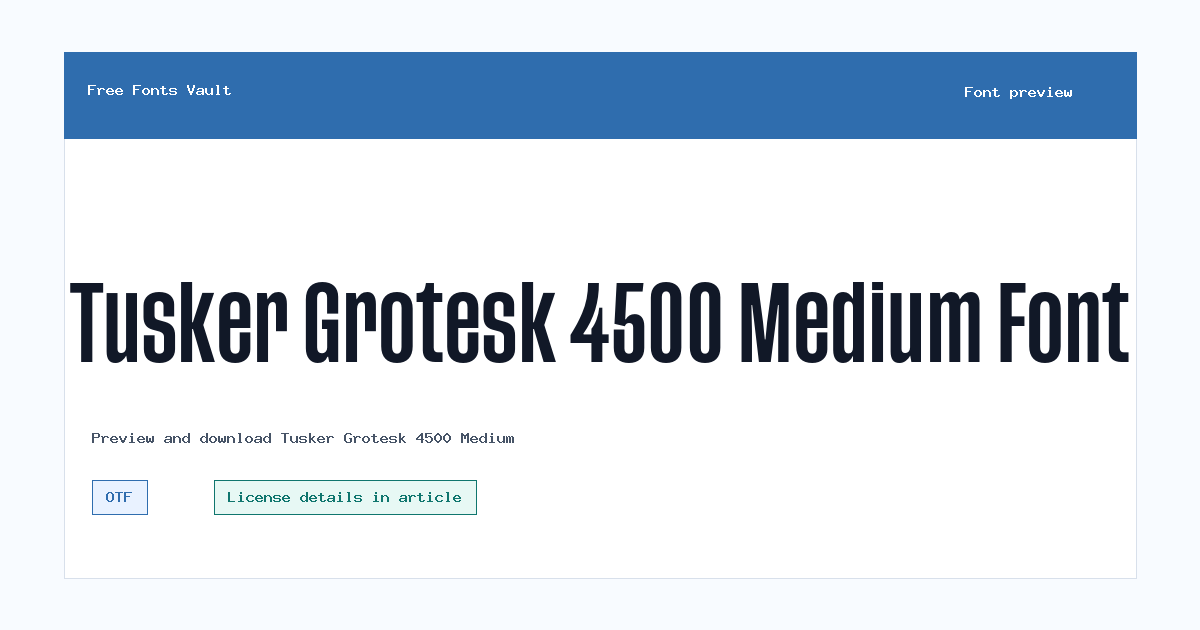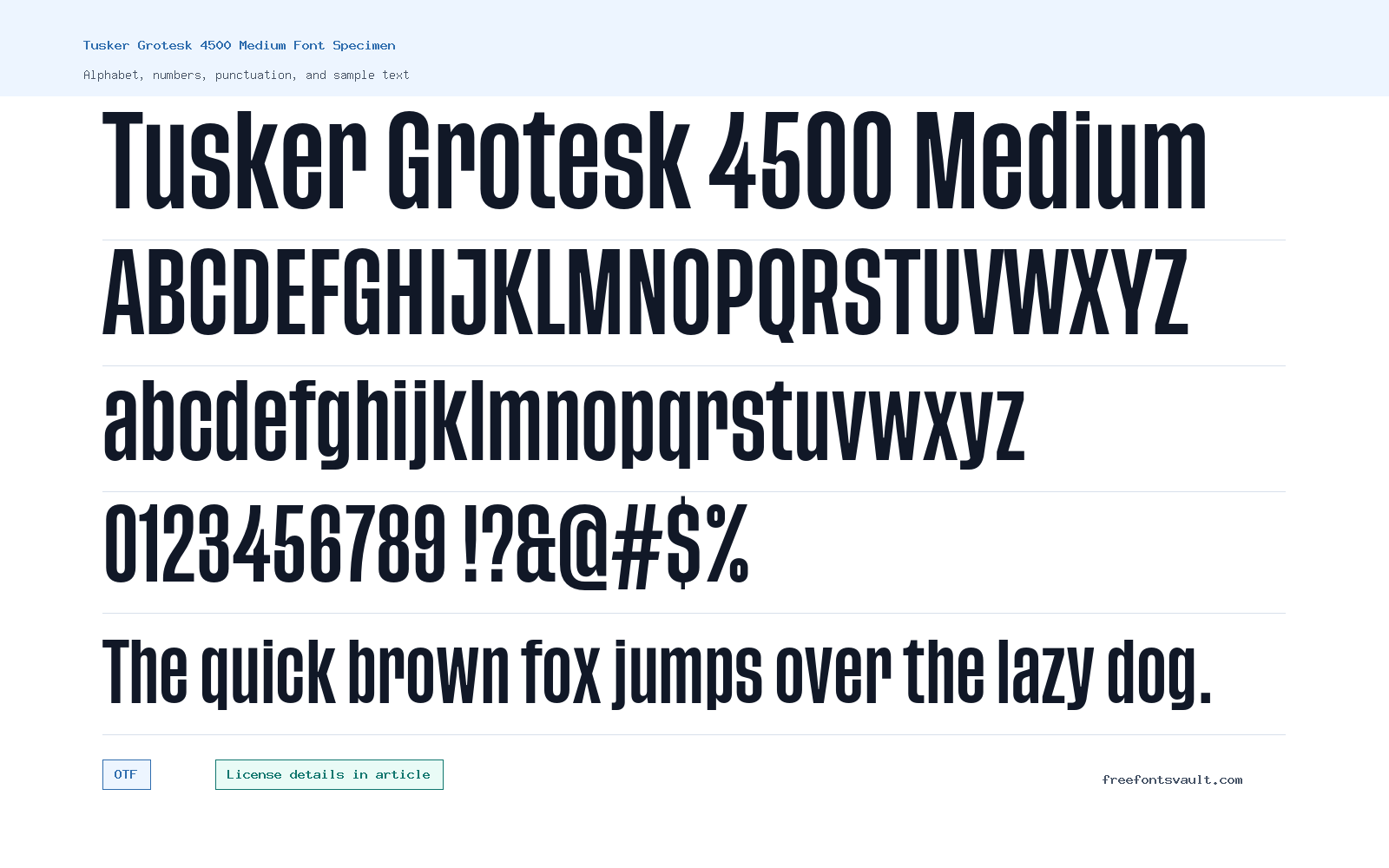
Tusker Grotesk 4500 Medium
- Designer Lewis McGuffie
- Foundry Lewis McGuffie
Tusker Grotesk 4500 Medium font.
Tusker Grotesk 4500 Medium is a medium-weight OTF font for designers who want a firm, clean display voice without jumping straight to a heavy black style. It is useful for headlines, poster text, labels, and brand mockups where short wording needs presence.
About Tusker Grotesk 4500 Medium
Tusker Grotesk 4500 Medium is listed with normal style and 500 weight. That medium weight gives it more authority than a light cut while still leaving room for spacing, color, and layout to do part of the work. The result is a practical choice for title settings, short interface labels, banners, and large-format text.
Use this font when the layout needs a modern sans-serif tone that feels structured rather than decorative. It can anchor a poster, product mockup, editorial headline, or social graphic. If the project includes long paragraphs, pair Tusker Grotesk 4500 Medium with a dedicated body font and let this cut handle the visible headline role.
- Medium 500 weight for confident short text
- Clean grotesk direction suited to display typography
- Useful for large type, labels, banners, and visual systems
- Designer and foundry credit listed as Lewis McGuffie
- Headlines, posters, banners, and title treatments
- Packaging mockups and product-style labels
- Navigation labels, buttons, and short interface text
- Brand explorations that need a direct sans-serif voice
- Social graphics, cover images, and editorial display layouts
Start by testing the real headline or label you plan to set. Check uppercase words, lowercase rhythm, numerals, punctuation, and tight spacing. If the layout has paragraphs or small captions, choose a separate reading font and use Tusker Grotesk 4500 Medium for the text that needs visual impact.
What weight is this font?
It is listed with a 500 weight, which is commonly treated as medium.
Who designed Tusker Grotesk 4500 Medium?
The designer and foundry credit are both listed as Lewis McGuffie.
What is Tusker Grotesk 4500 Medium best for?
It is best tested for short, visible text such as headlines, labels, posters, banners, and brand mockups.